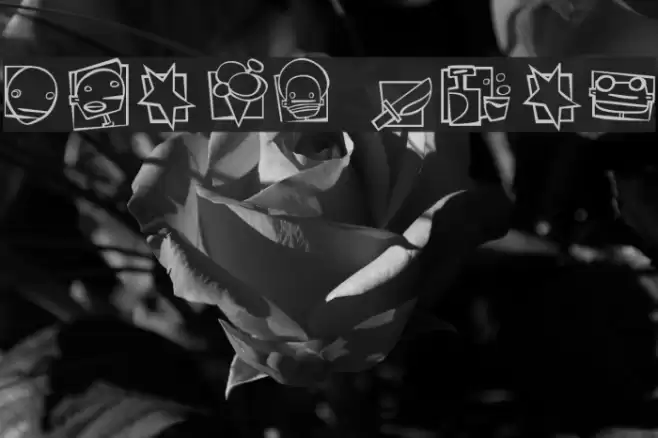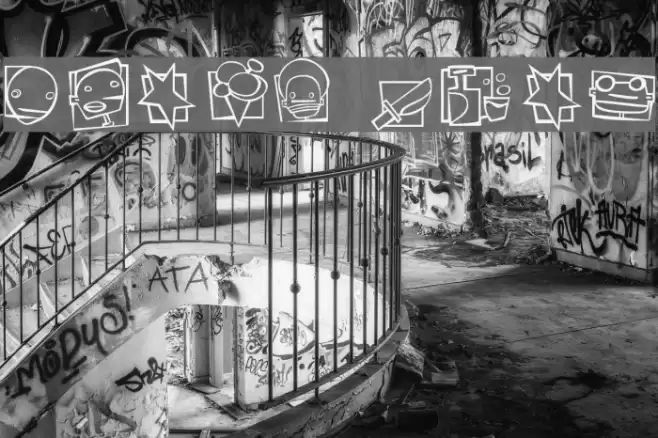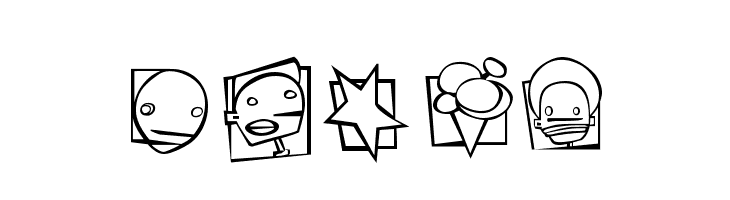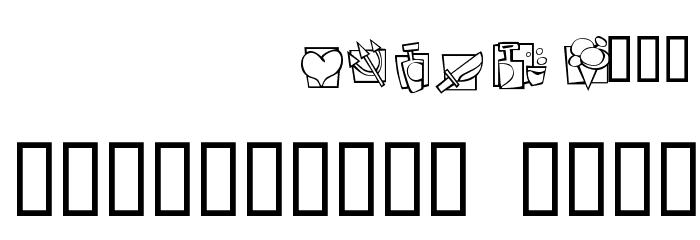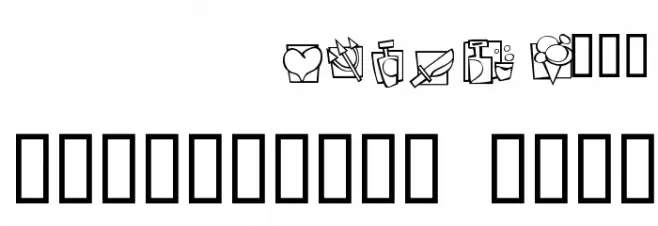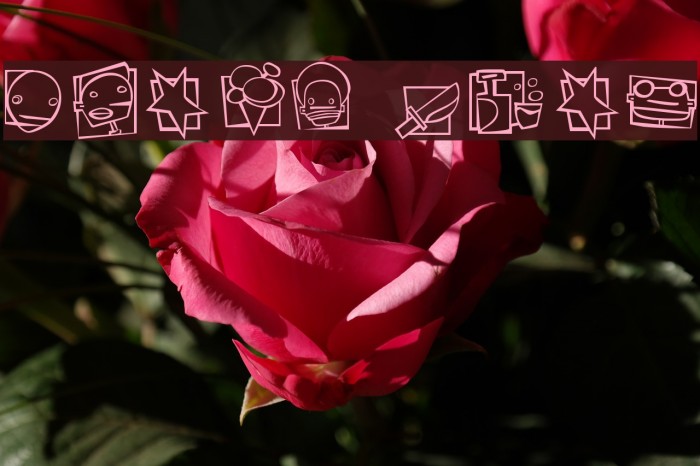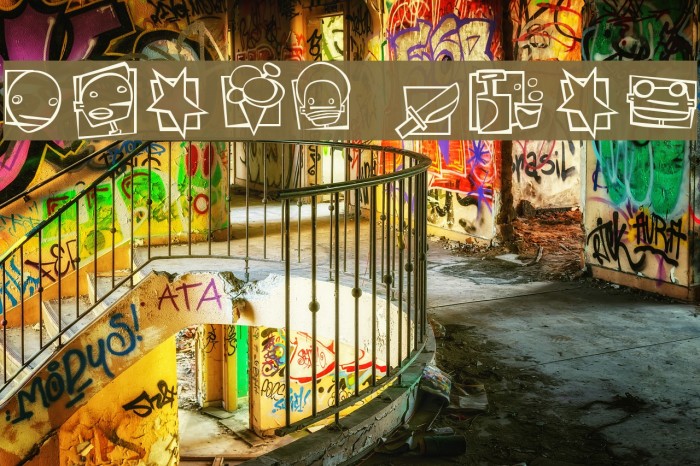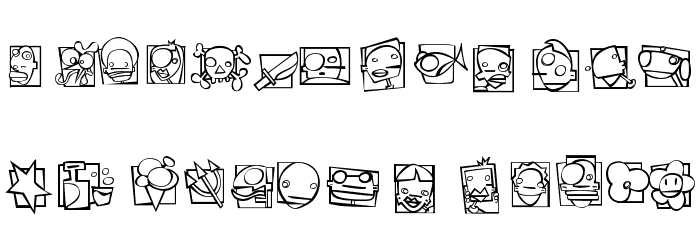
ShnPC Font
ShnPC Description
This font features a unique and playful design, incorporating cartoon-like characters within each letter and symbol. Each character is enclosed in a square, giving it a distinctive and whimsical appearance. The design is highly decorative, with each letter and symbol featuring a different character or scene, adding a sense of fun and creativity. The font is not suitable for traditional text but serves as an artistic expression, ideal for projects that require a touch of humor and individuality. The characters are bold and eye-catching, making them stand out in any design.
A playful, cartoon-inspired decorative font with unique character designs from Dingbats fonts.
- Proposed Projects: Ideal for children's book covers, playful posters, comic strips, and creative branding projects.
- Use Case: Logos, Posters, Creative projects